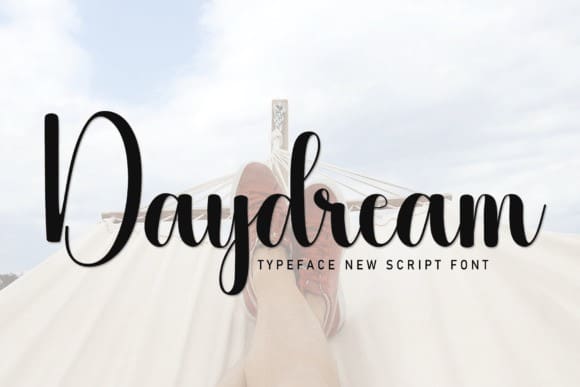
Daydream Script Typeface
Daydream Script Font is a flowing handwritten font, described by an elegant touch, perfect for your favorite projects. Fall in love with its incredibly distinct and timeless style and use it to create spectacular designs!